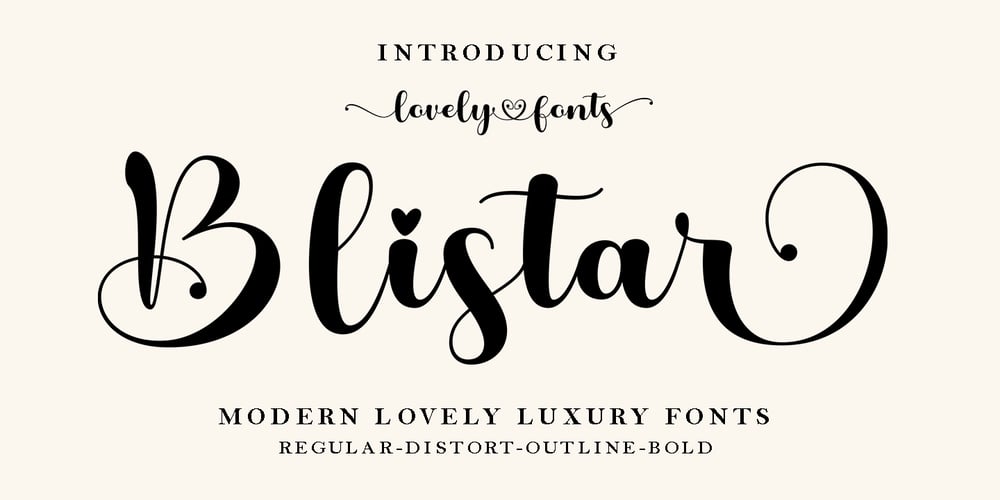
Blistar
Blistar font
Blistar Font Family was designed by Teuku Bustami and published by TM Type. Blistar contains 1 styles and family package options. Blistar is a romantic and sweet modern calligraphy typeface with characters that dance along the baseline. It has a casual, yet elegant touch. This font is PUA encoded which means you can access all of the glyphs and swashes with ease!